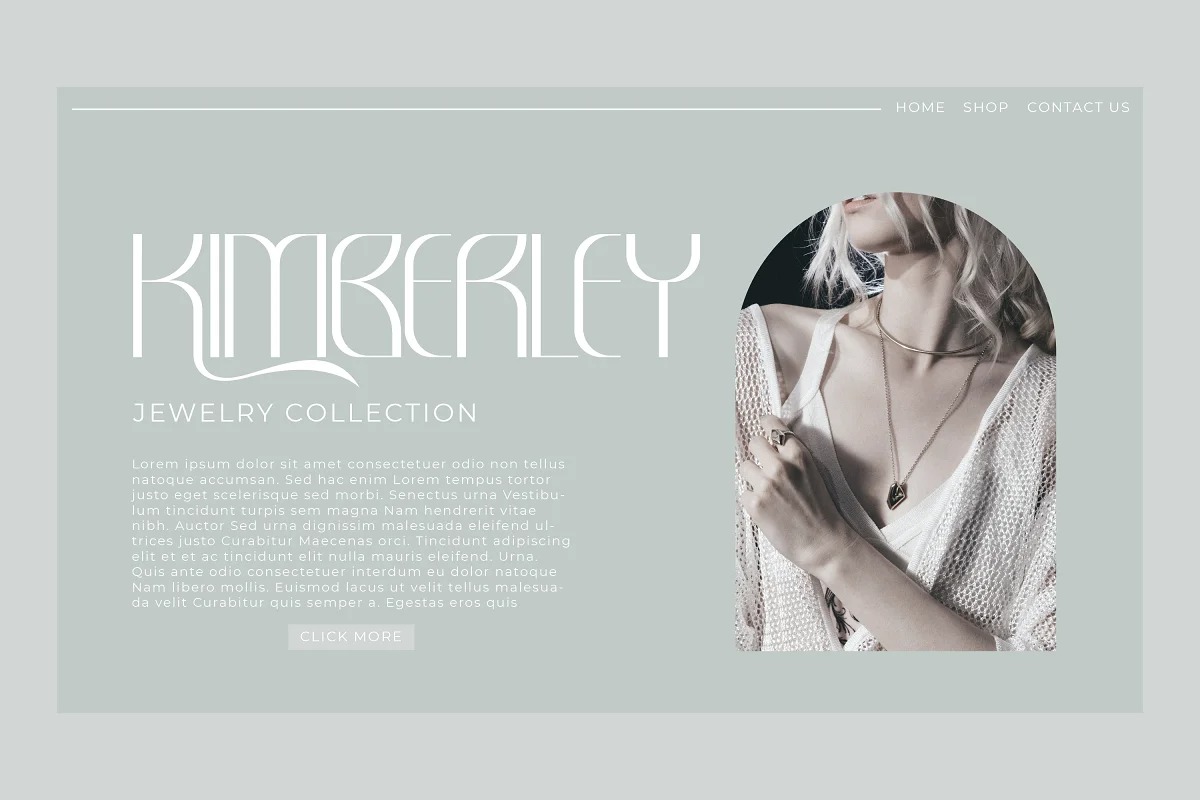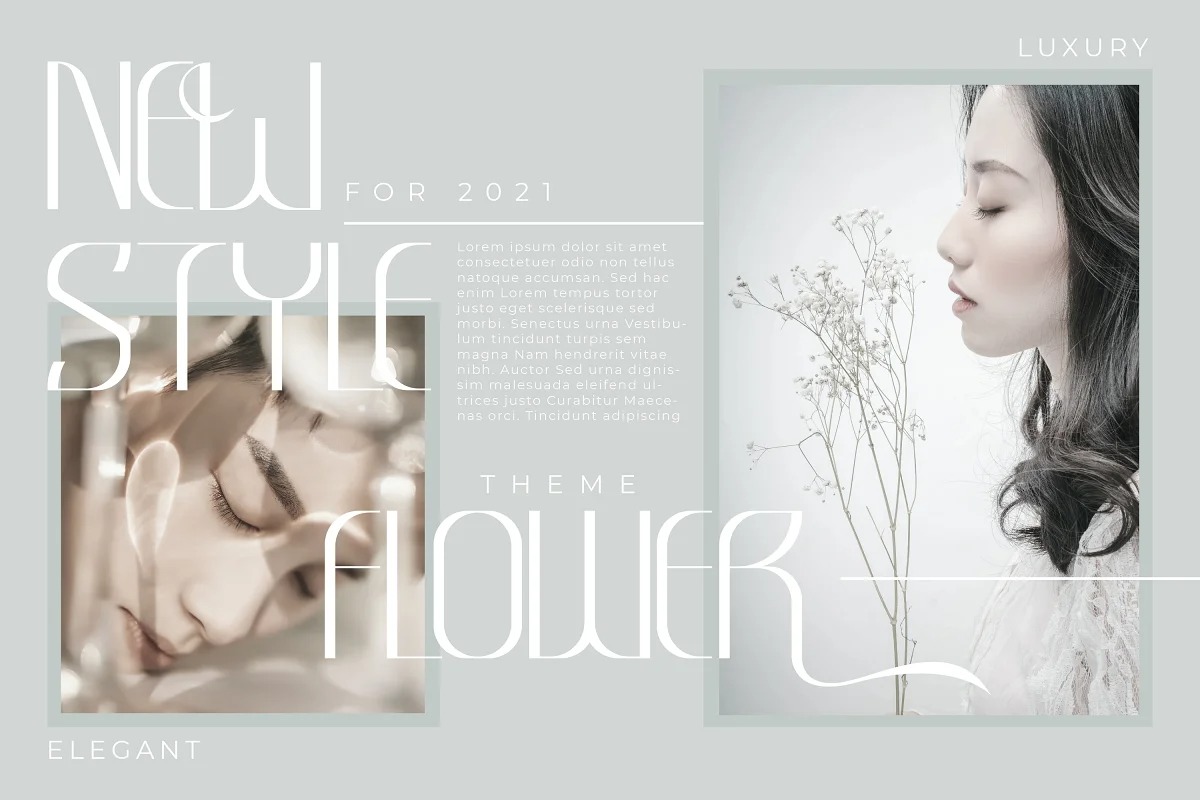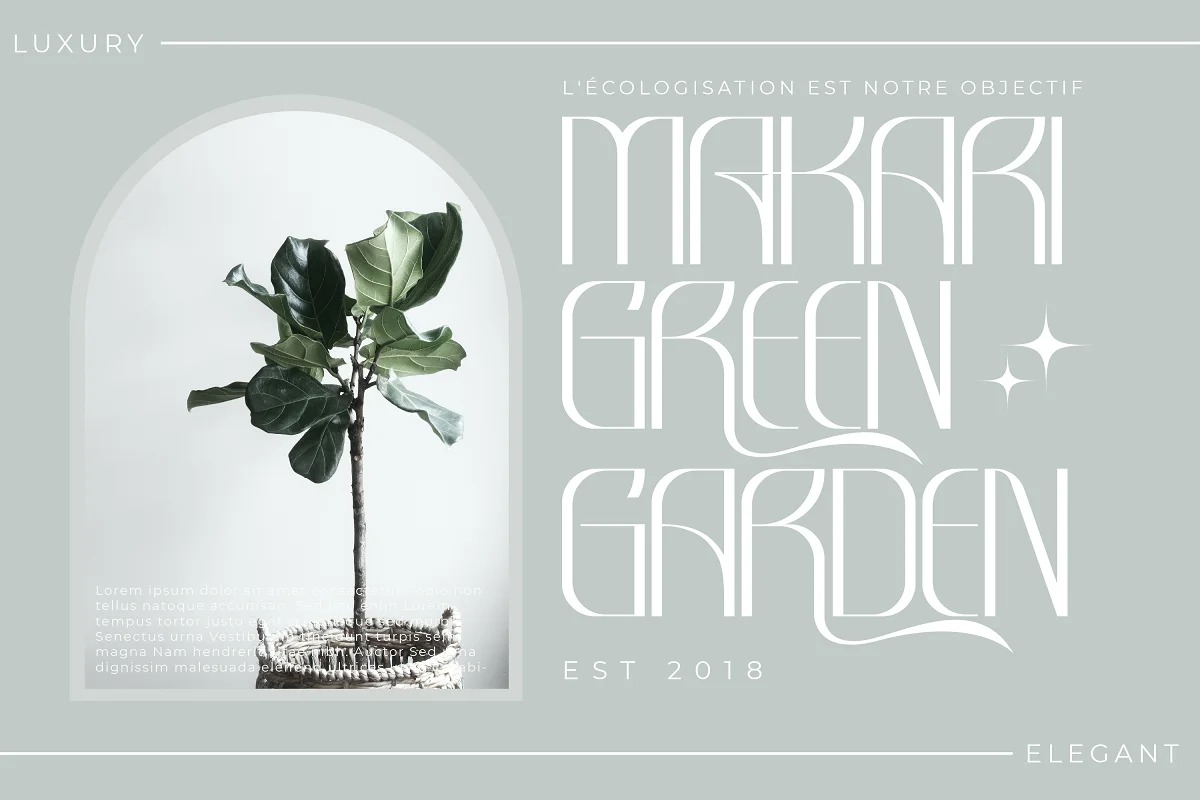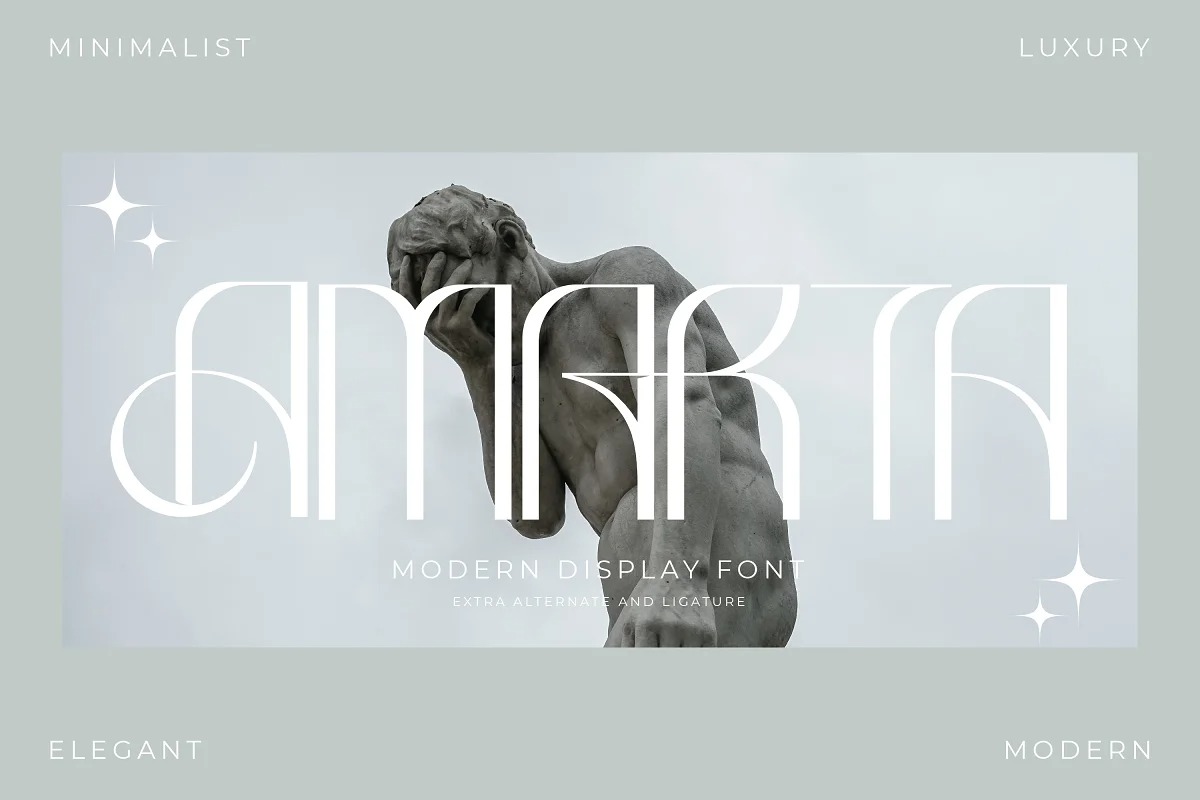
Amarta Sans Serif Font
This is a high-contrast Serif typeface created by Storytype Studio with a strong impact and elegant typeface. Amarta offers a wide variety of combinations for you to create with. This typeface is perfect for an elegant & luxury logo, book or movie title design, fashion brand, magazine, clothes, lettering, quotes, and so much more.